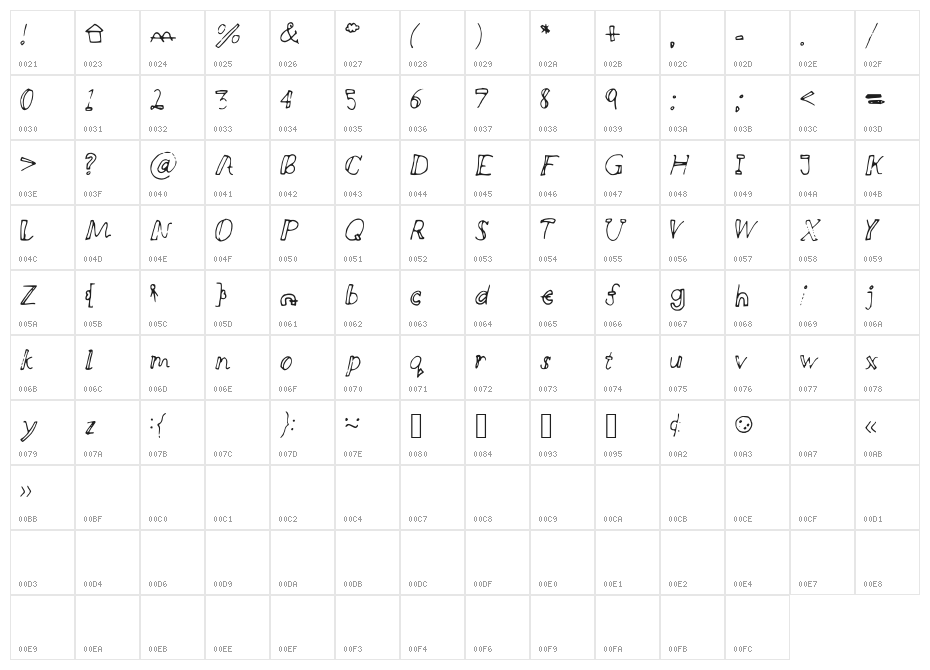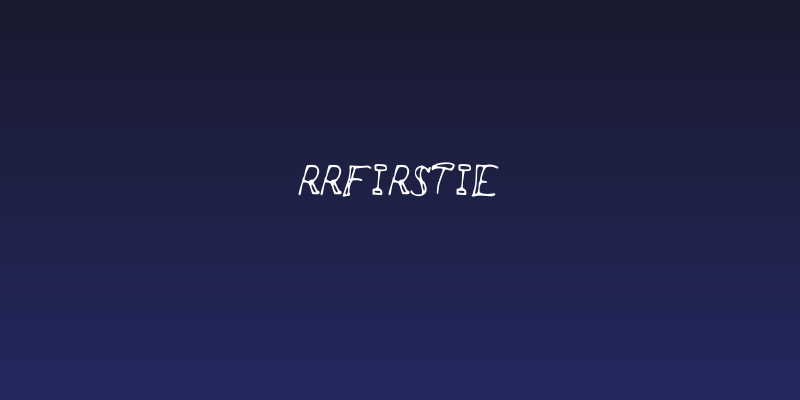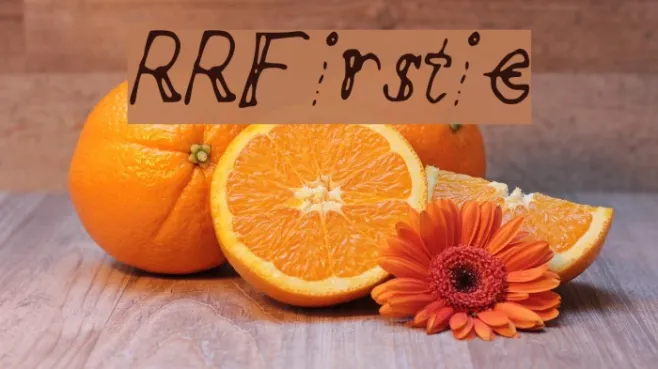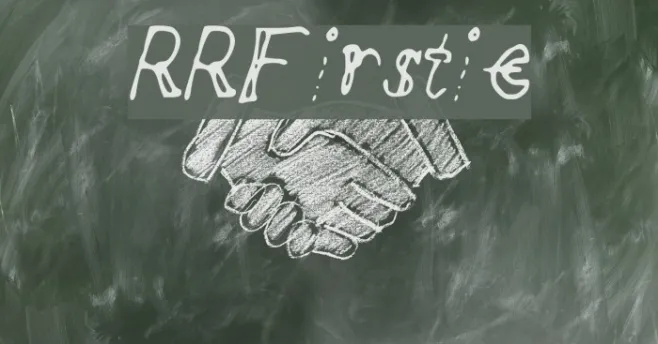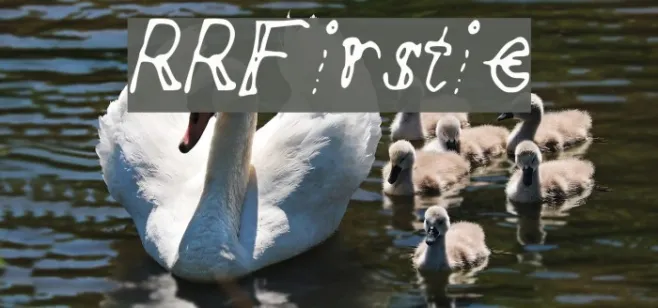
RRFirstie Font
RRFirstie Description
This font exhibits a playful and whimsical style, characterized by its hand-drawn appearance. The letters are irregular and feature a mix of thick and thin strokes, giving it a dynamic and lively feel. The uppercase letters are bold and slightly tilted, while the lowercase letters maintain a more consistent baseline with quirky variations in form. Numbers and special characters follow the same playful aesthetic, making this font suitable for creative and informal designs. The overall look is reminiscent of casual handwriting, adding a personal touch to any project.
| Proposed Projects | Ideal for children's books, greeting cards, playful branding, and creative posters. |